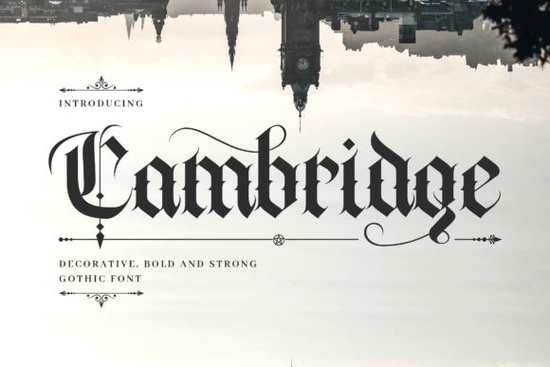
Looking for a blackletter font that feels timeless and authentic? Cambridge Font delivers just that elegant, bold, and rooted in traditional gothic lettering. Whether you're designing invitations, branding materials, or print-on-demand products, this font adds instant gravitas to your work.
What makes Cambridge Font stand out?
Unlike many modern takes on blackletter styles, Cambridge keeps the spirit of historical calligraphy alive. Its sharp serifs, consistent stroke contrast, and balanced proportions give it a refined look that’s both dramatic and readable. It's not just another decorative typeface it feels like it belongs in an old manuscript or a royal decree.
You’ll find it especially useful when you want to convey authority, tradition, or craftsmanship. Think wedding stationery with a vintage flair, book covers for fantasy novels, or logos for artisanal brands aiming for a handcrafted identity.
Where can you use Cambridge Font?
- Wedding invites – Add a touch of elegance to formal events.
- Book covers – Perfect for historical fiction, gothic tales, or indie publishing.
- Branding & logos – Great for craft breweries, handmade goods, or boutique shops.
- Print-on-demand designs – Ideal for T-shirts, mugs, and wall art with a classic vibe.
If you’ve already explored similar fonts like Porphyria or Gifter’s, you might appreciate how Cambridge strikes a balance between ornate detail and legibility. It’s less dense than some blackletter options, which means it works well at smaller sizes too.
How does it compare to other blackletter fonts?
While fonts like Porphyria lean into intricate detailing and high drama, and Gifter’s brings a slightly more playful edge, Cambridge sits in a sweet spot: dignified but not overwhelming. It’s also more versatile across different projects than many niche blackletter styles.
For signage or large-format prints, it holds up beautifully. You’ll notice the consistency in weight and spacing important when scaling text for banners or storefronts. If you’re working on something like a prestige signage project, Cambridge fits right in without looking out of place.
Why designers choose Cambridge Font
One of the reasons creatives keep coming back to this font is its reliability. It’s well-structured, includes full character sets (uppercase, lowercase, numbers, punctuation), and works across multiple platforms whether you're using Adobe Illustrator, Canva, or Affinity Designer.
It’s also a solid choice for small business owners who want to build a visual identity that feels established and trustworthy. A logo with Cambridge can signal quality and attention to detail without needing a designer to explain it.
And if you're into DIY crafts or selling handmade items online, pairing this font with rustic textures or vintage illustrations creates a cohesive aesthetic that resonates with buyers looking for authenticity.
Once you've used it a few times, you’ll likely come back to it again and again not just for one-off projects, but as part of your go-to toolkit.
Whether you're a hobbyist exploring typography for fun or a professional refining your brand voice, Cambridge Font offers a reliable, stylish option that doesn’t sacrifice usability for flair.